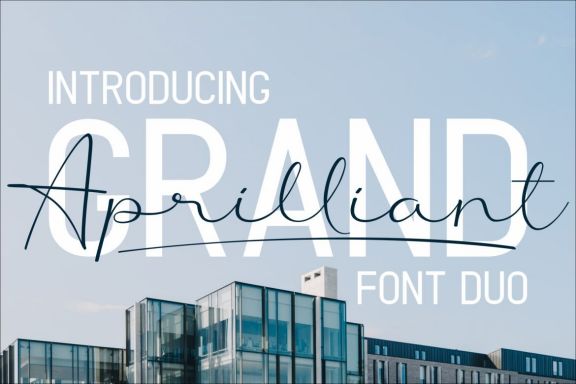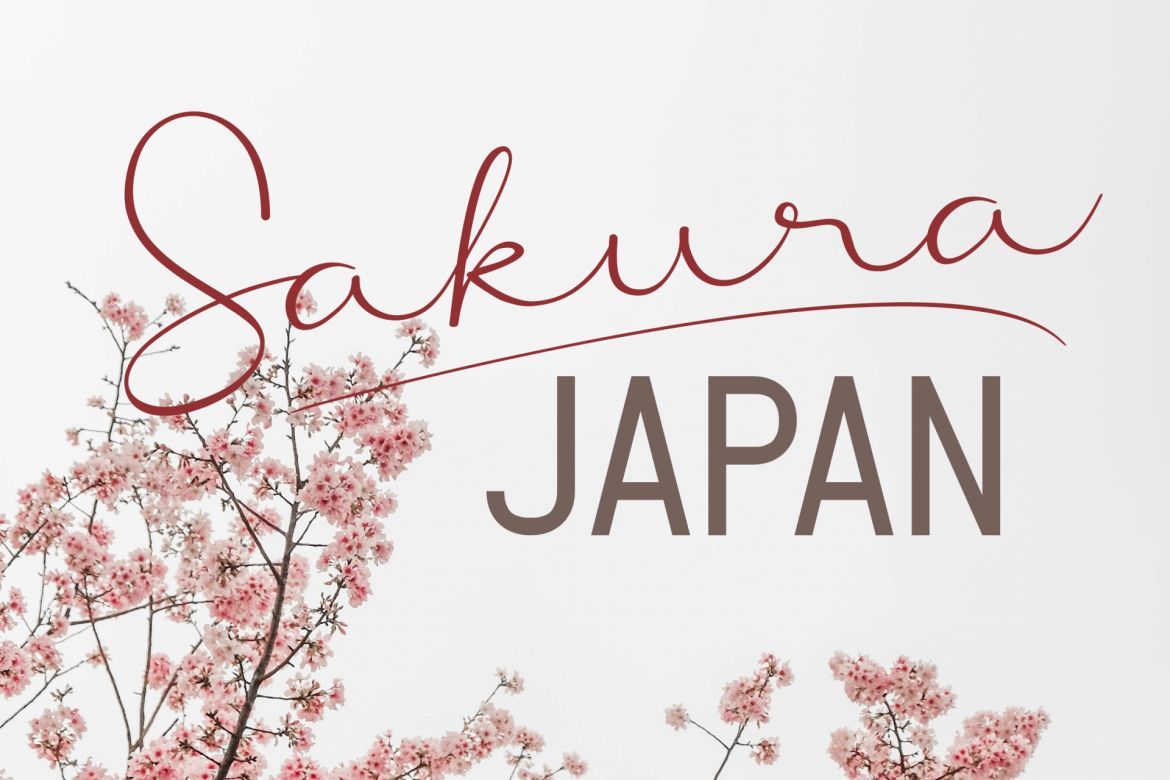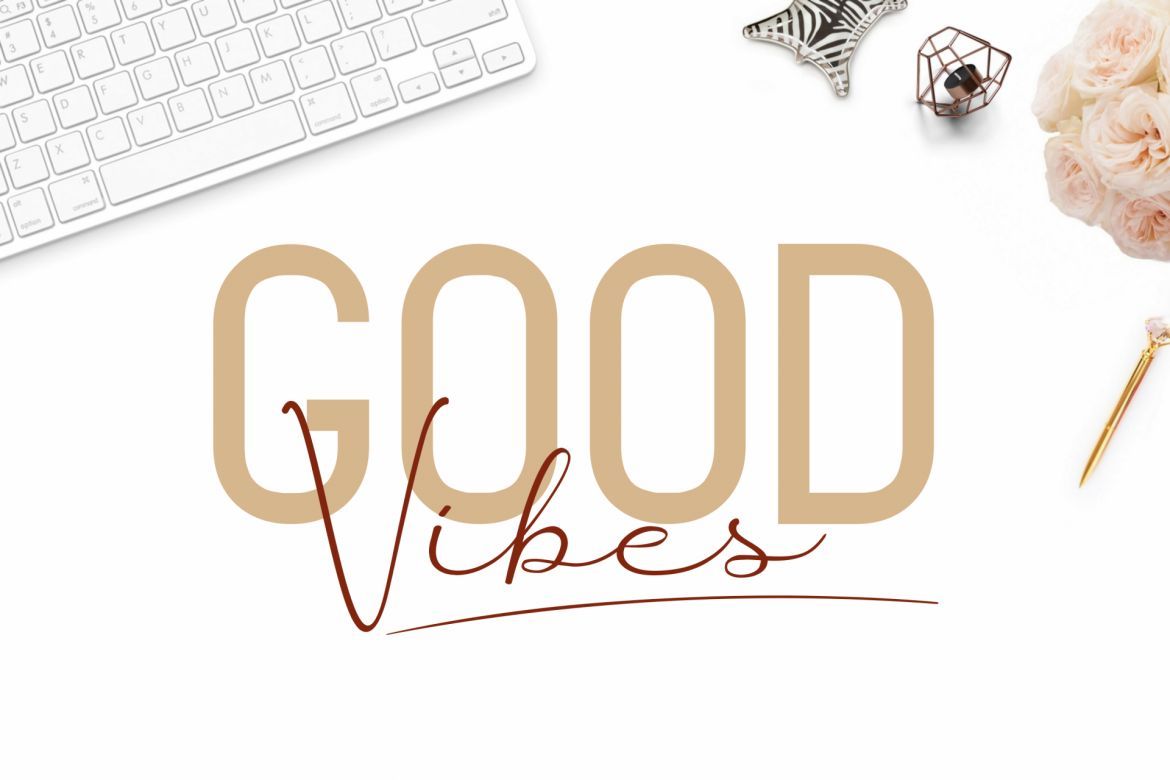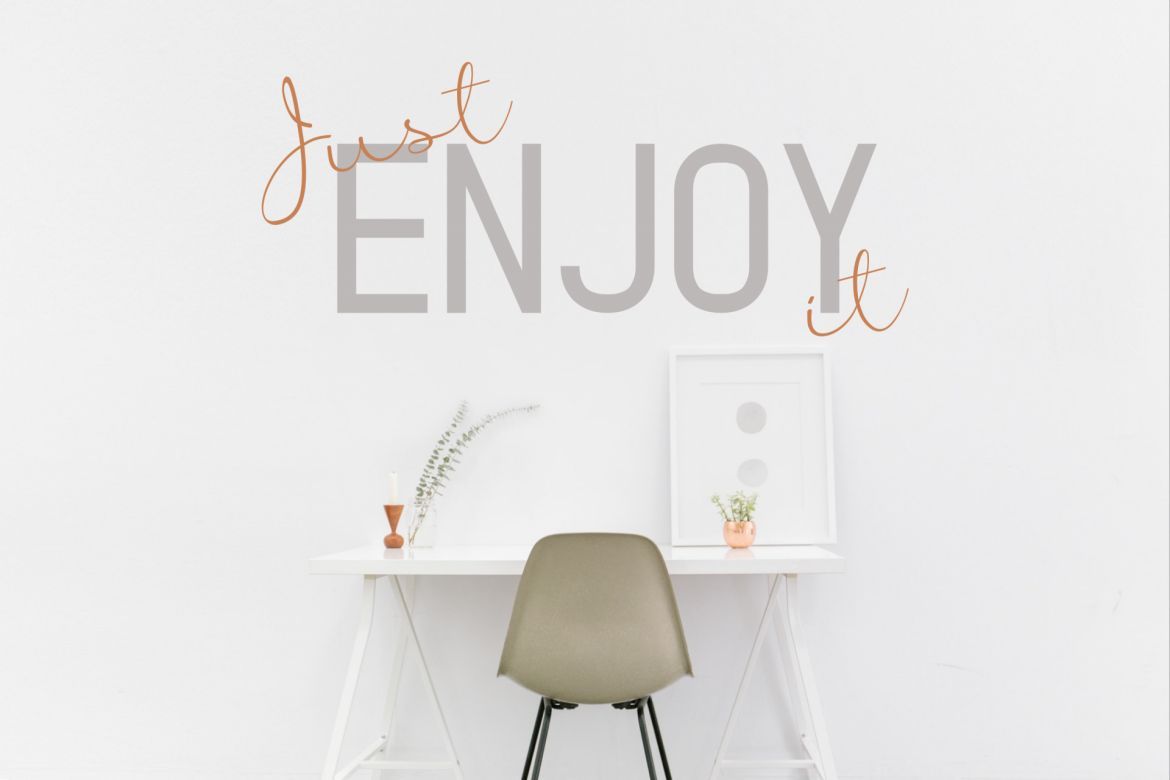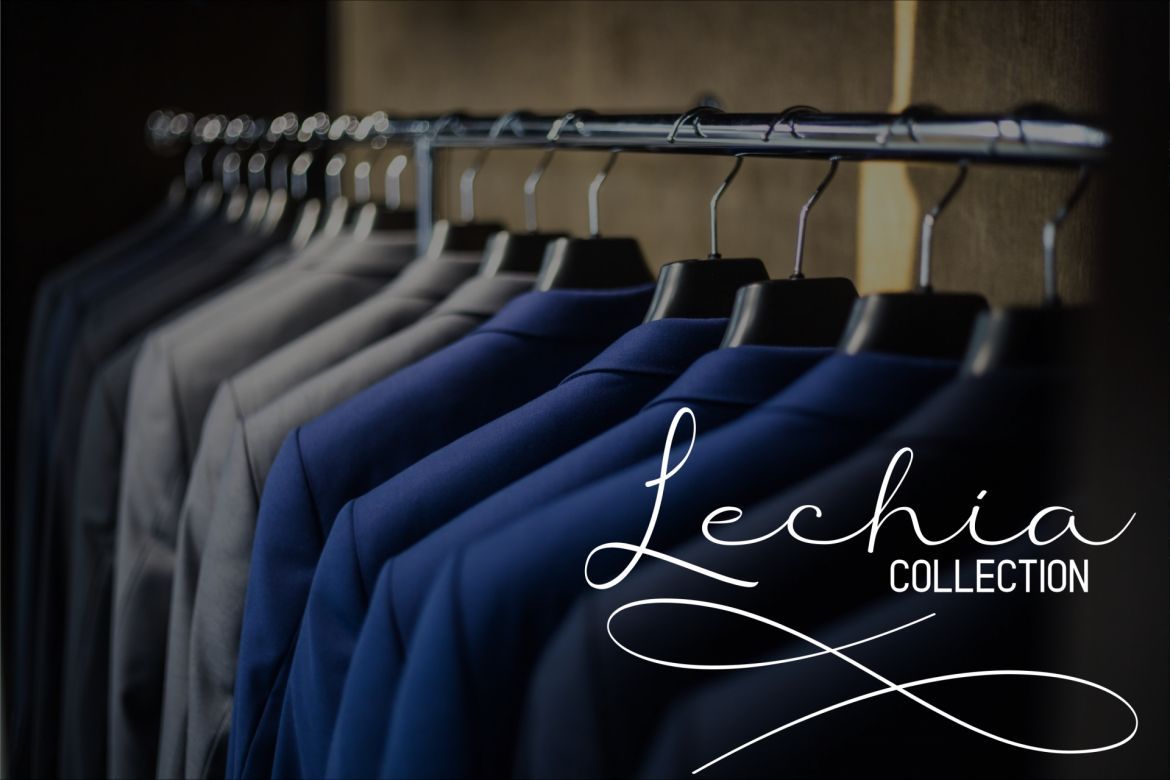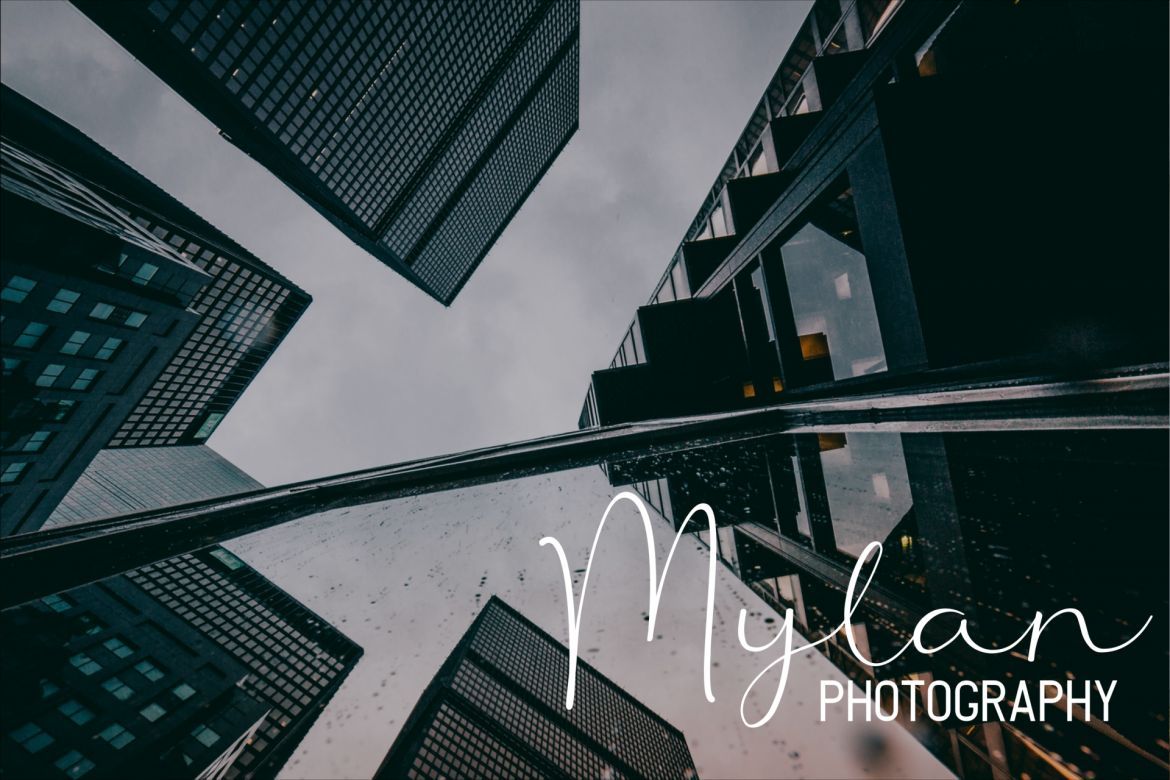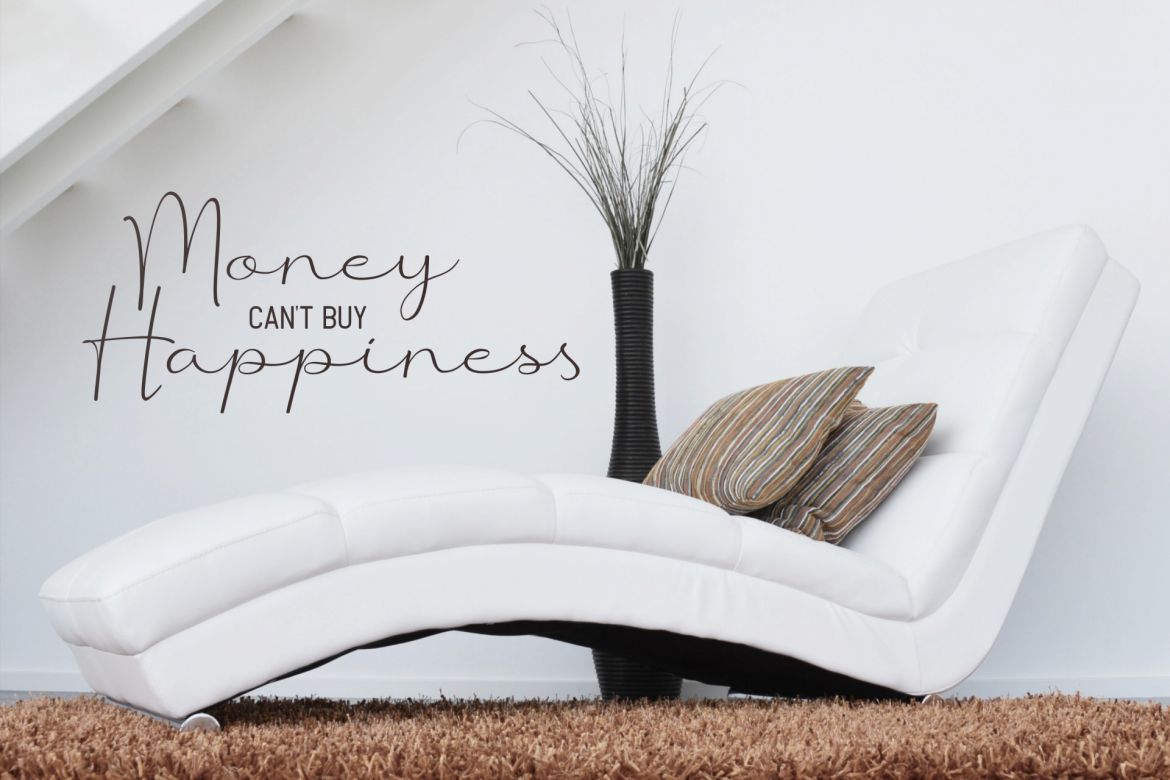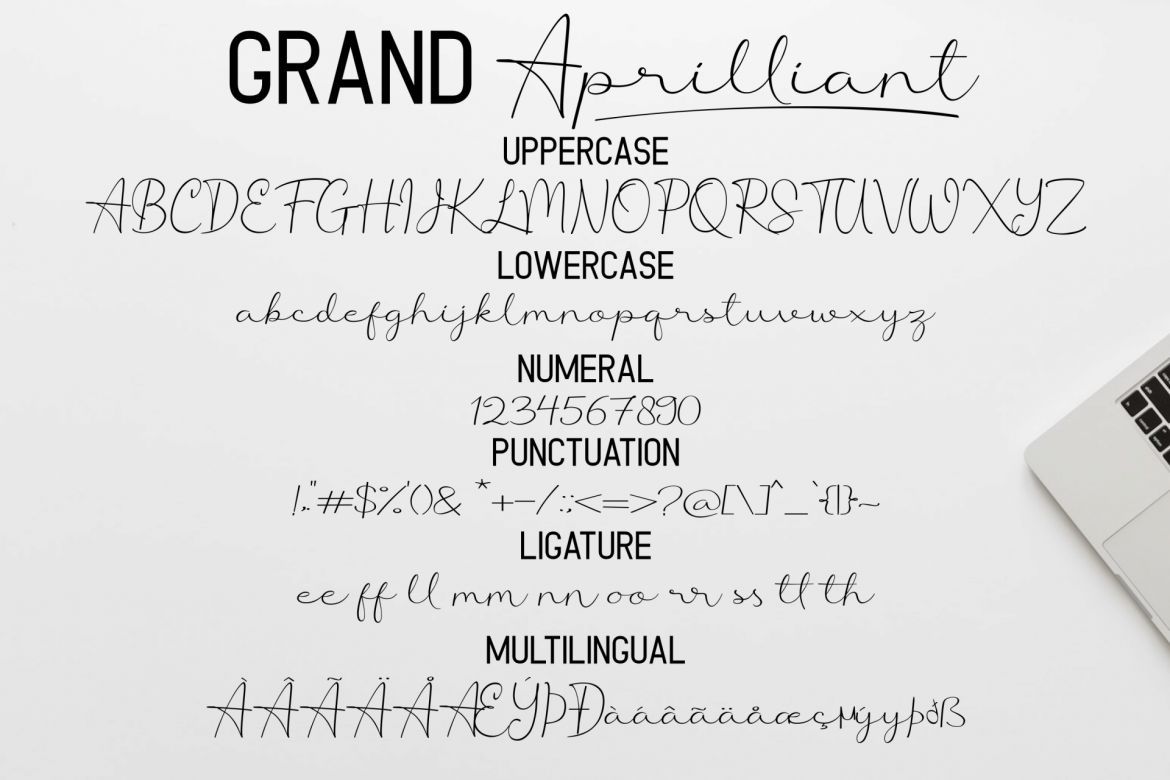
Grand Aprilliant - Font Duo
Grand Aprilliant is a beautiful Font duo. It comes in two styles, which can be paired together perfectly; signature script and sans serif.
It works perfectly in the world of weddings, logos, greeting cards, branding, print ads, quotes, signage, magazines, and more!
• extra swashes
• font duo script and sans
• multilingual supports